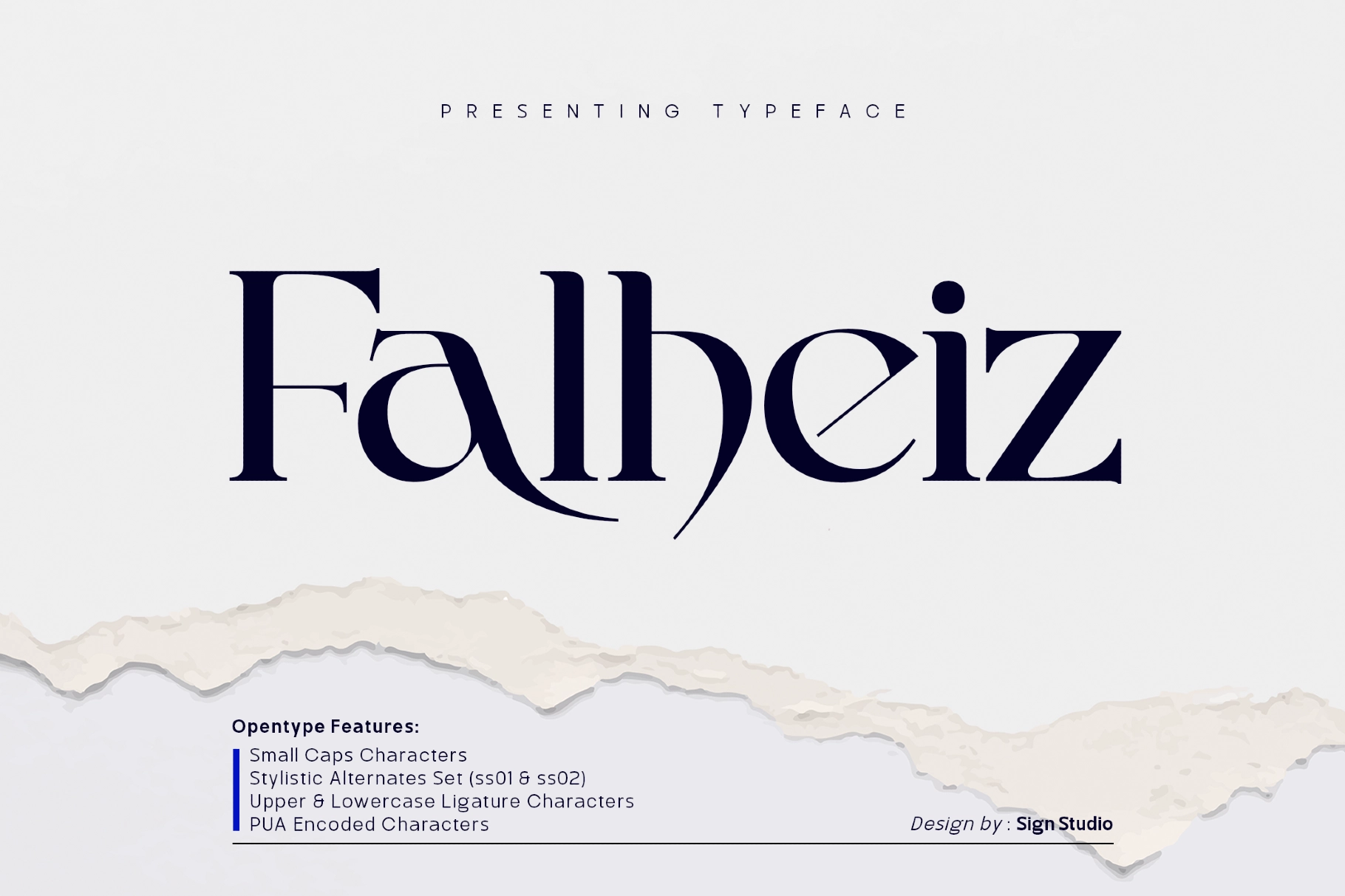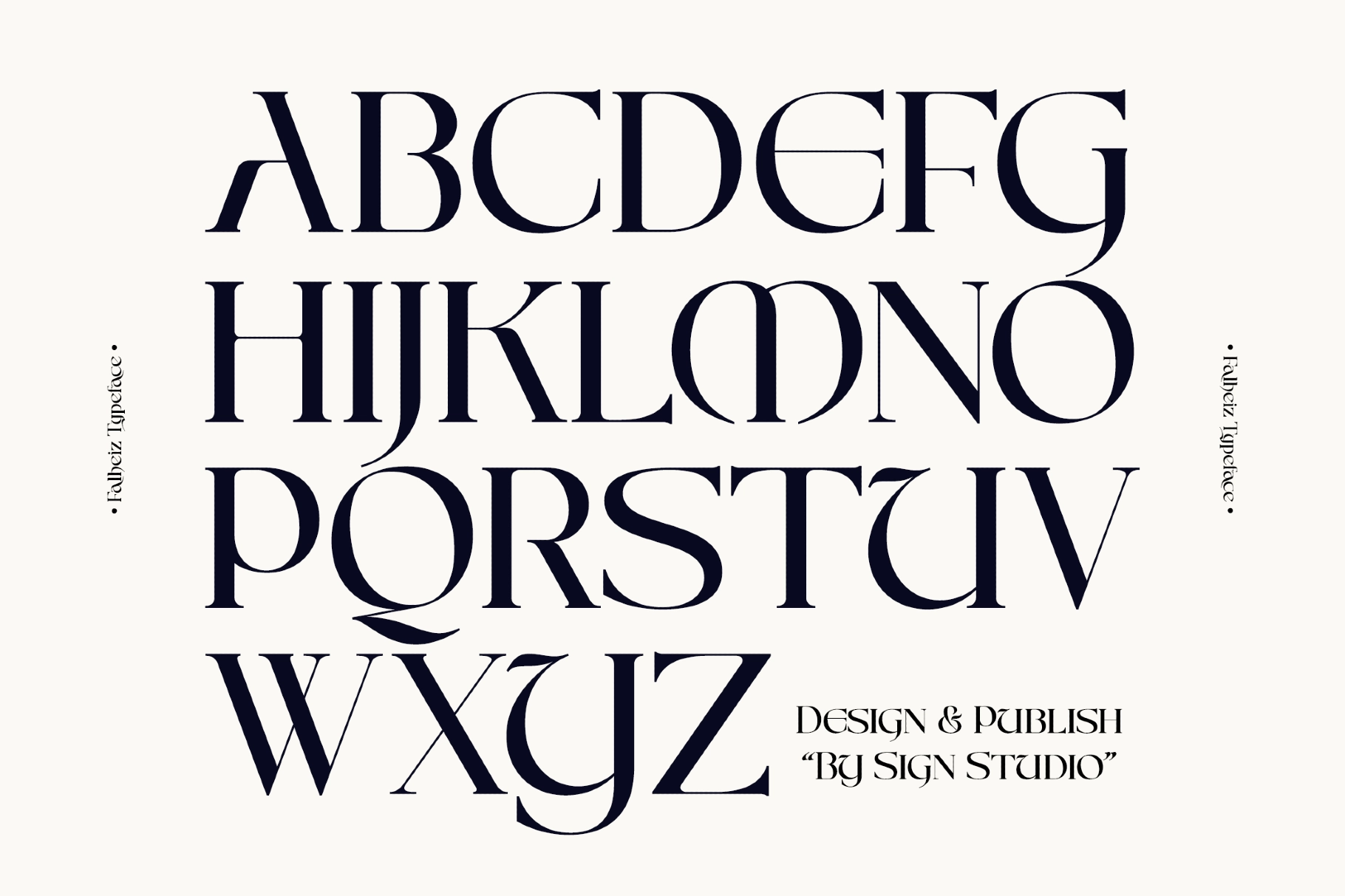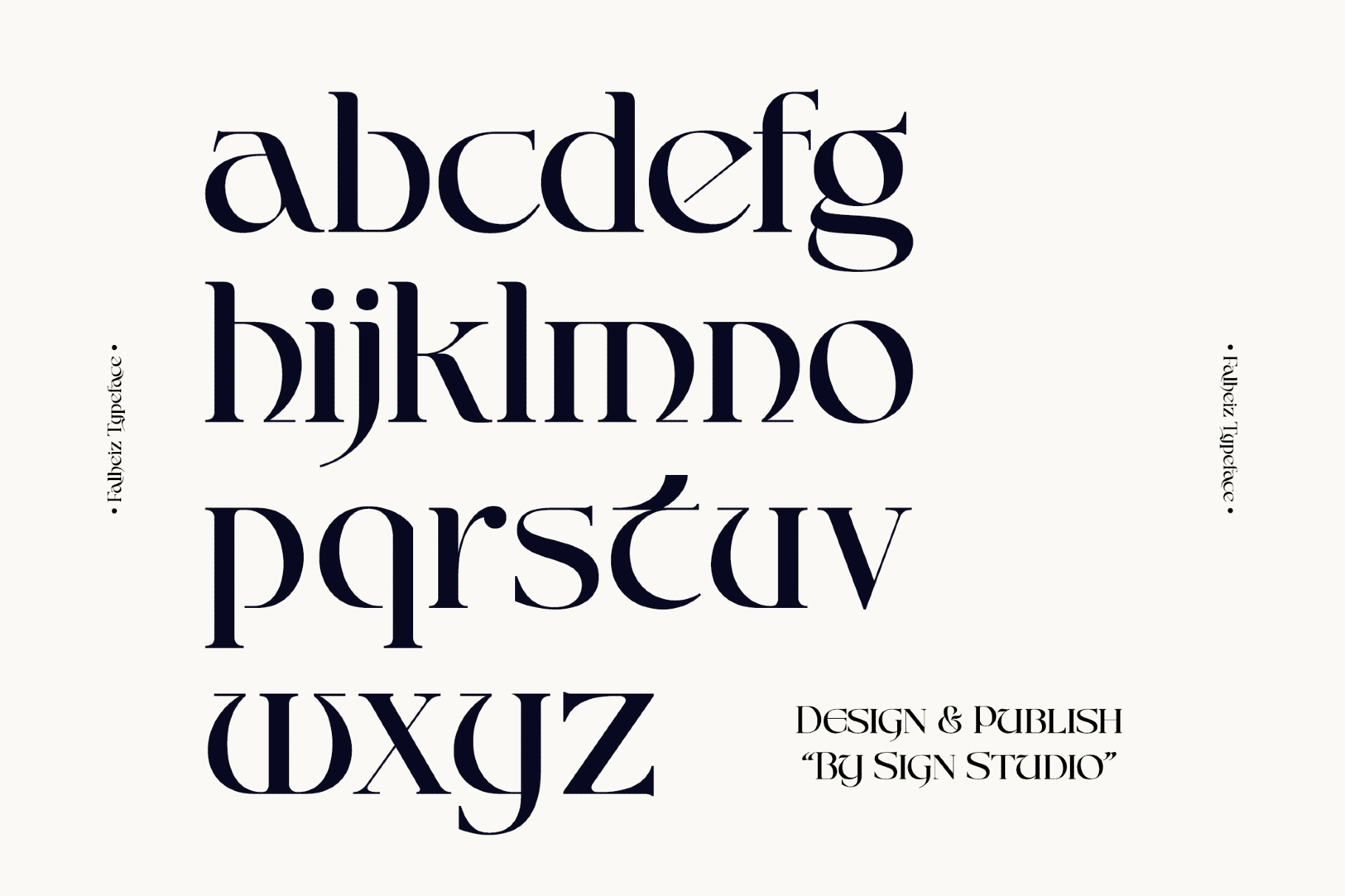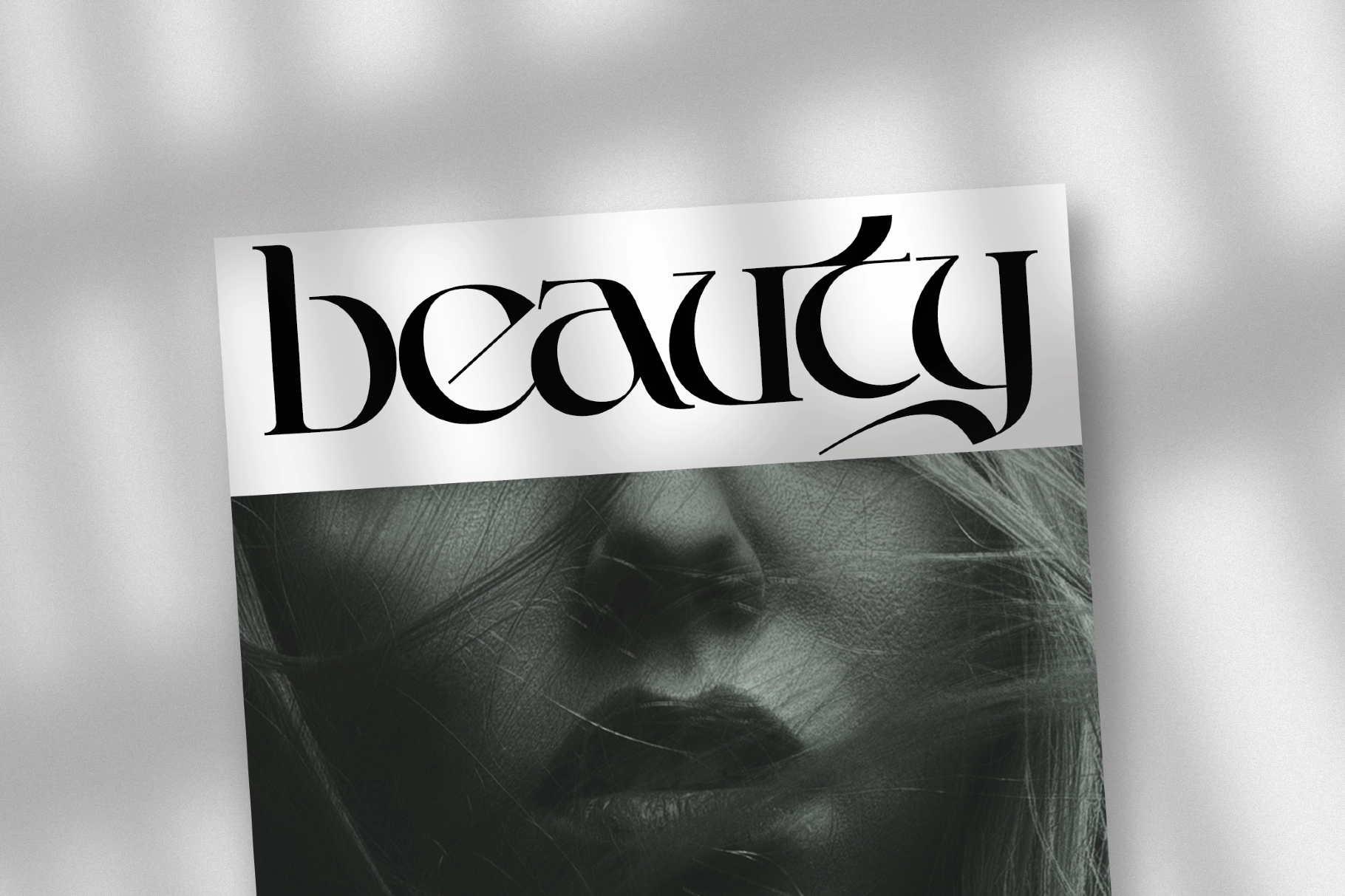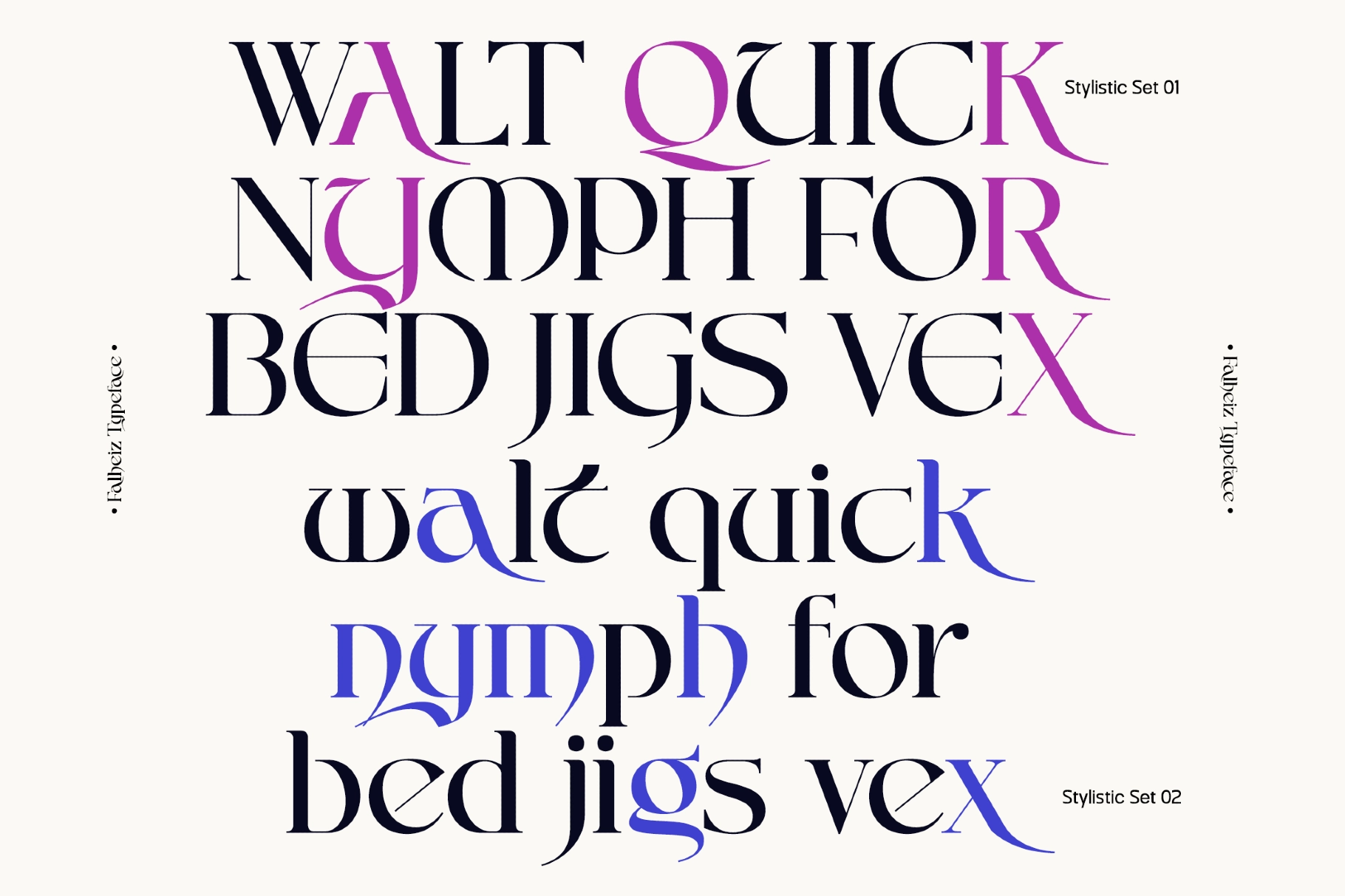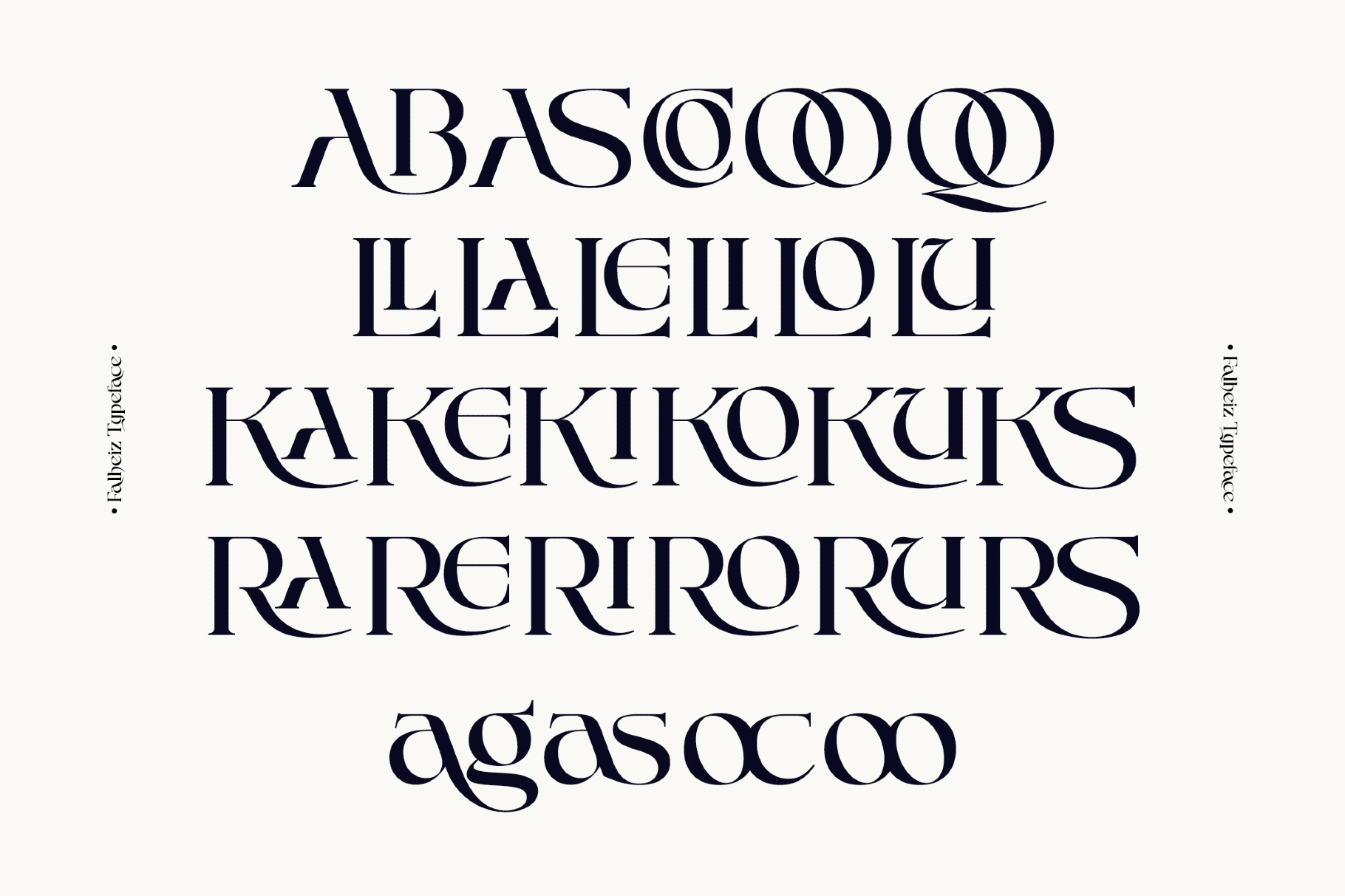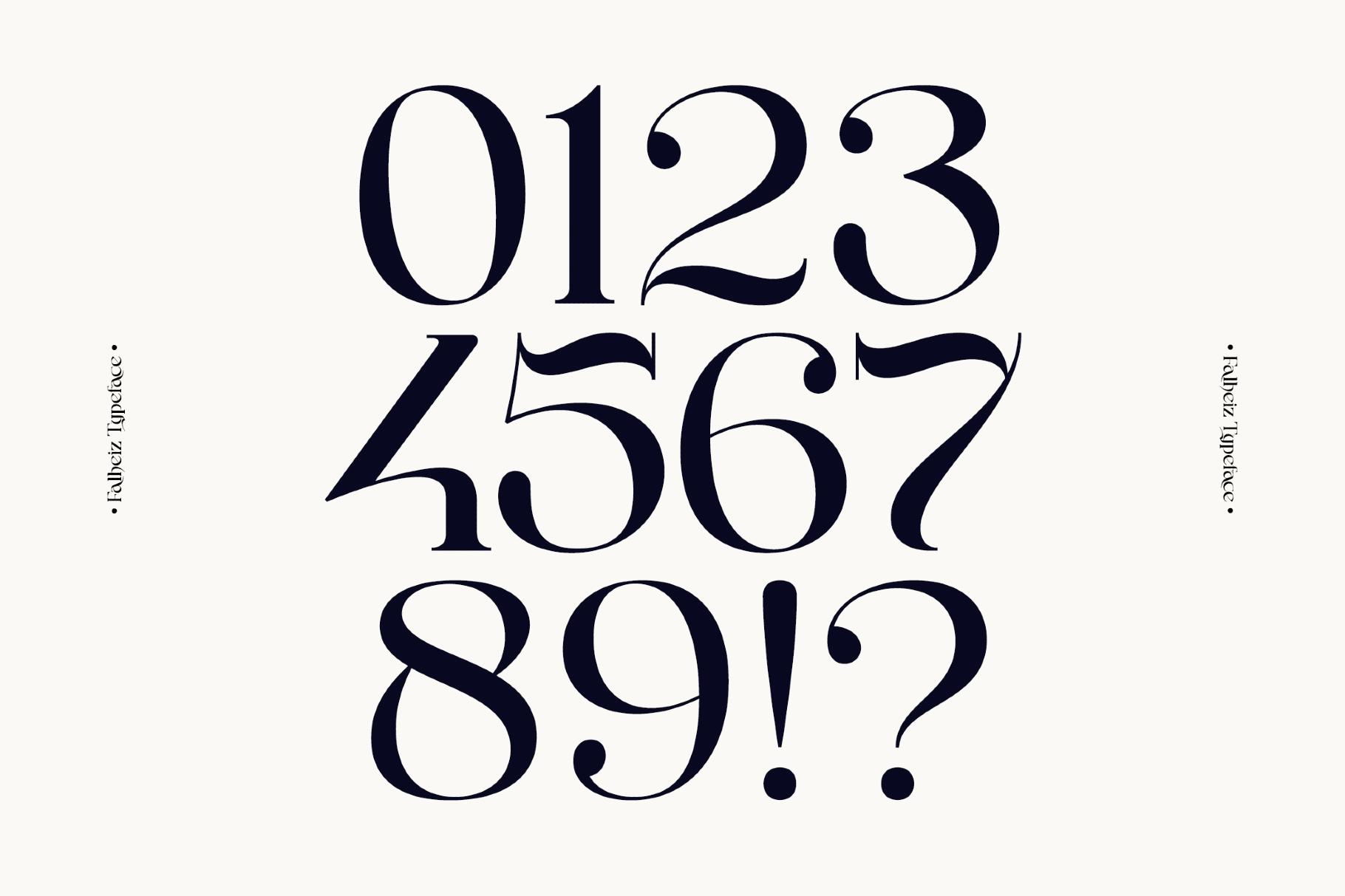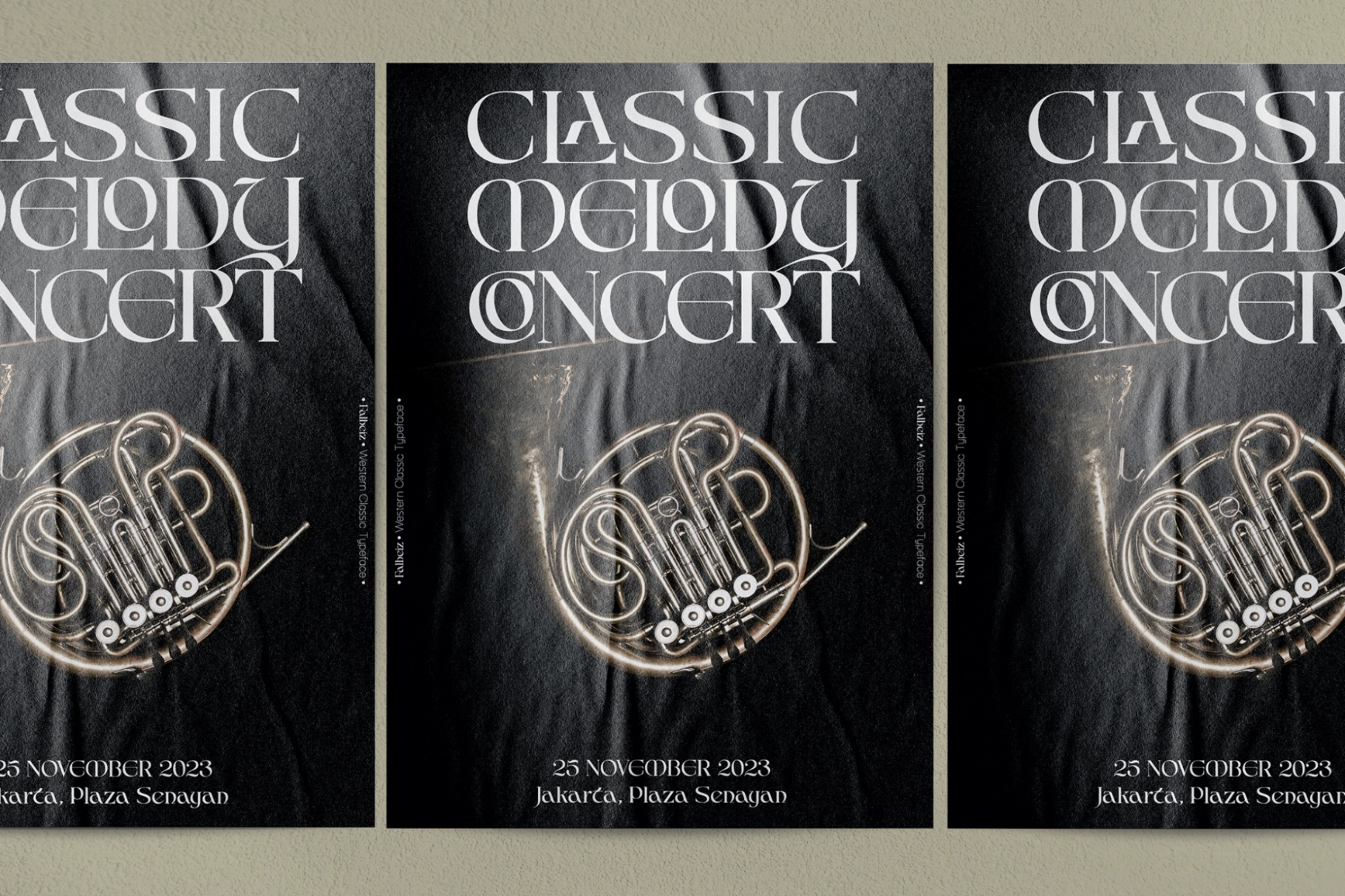
Falheiz - Modern Western Serif Typeface
Falheiz - Modern Western Serif Typeface is a distinctive display serif that captures the essence of classic Western typography with a refined, modern execution. Its sharp serifs, confident structure, and expressive curves create a strong visual identity that feels both nostalgic and sophisticated—perfect for designs that demand character and presence.
Carefully crafted to balance boldness and elegance, this typeface adapts seamlessly across a variety of creative applications. Whether used for branding, editorial layouts, or statement visuals, it delivers a timeless aesthetic with a unique edge, making it a reliable choice for designers seeking something memorable and versatile.
Uppercase & lowercase characters
Numerals & punctuation
Alternate characters
Ligatures